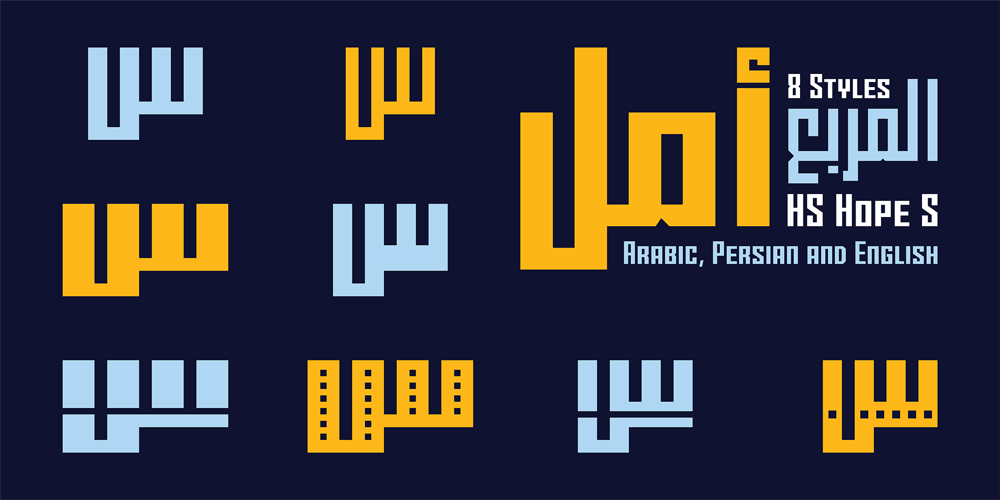
HS Hope S Font Family was designed by Hasan Abu Afash and published by Hiba Studio. HS Hope S contains 13 styles and family package options. HS Hope S is another typeface within the HS Hope family, similar to HS Hope R but with distinctive features. Unlike HS Hope R, HS Hope S has straight edges on all characters, giving it a sharper and more formal appearance. This typeface also supports Arabic, Persian, and Latin scripts and includes (13) styles: Light, Regular, Bold, Bold Dots, Bold Stencil, Title, Title Dots, Title Stencil, Bold 2, Bold 2S, Bold 2SS, Bold 2O, Bold 2C. The straight edges in HS Hope S make it suitable for professional and formal design projects, while still maintaining the modern geometric aesthetic.